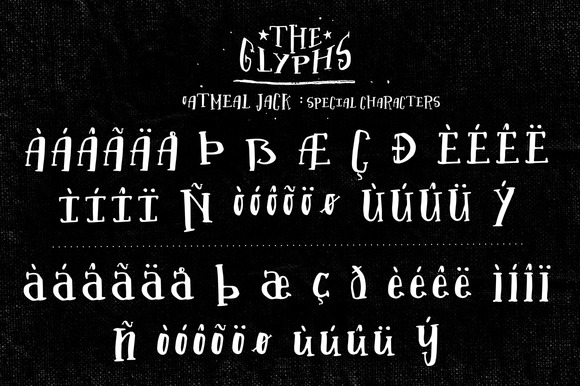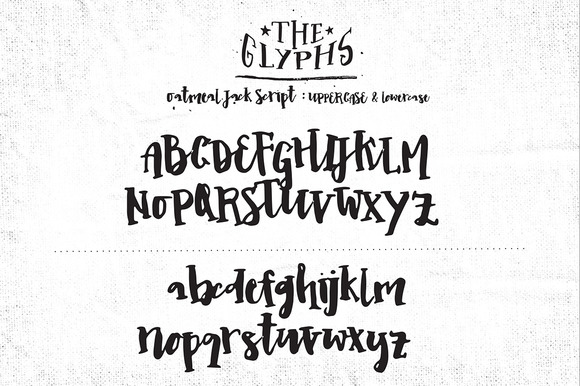
Oatmeal Jack Font
Oatmeal Jack is a stunning hand lettered font duo that was created entirely using a brush and marker.The duo consists out of: Oatmeal Jack Serif Oatmeal Jack Script The 2 styles are very complimentary and you can easily mix and match them. This allows you to alternate between personal and more serious designs, however, always with a fun twist.The Oatmeal Jack Serif & Script fonts come with complete accented glyphs for international languages. It also features ligatures.